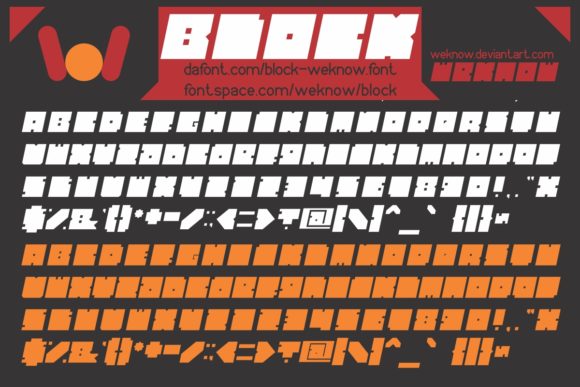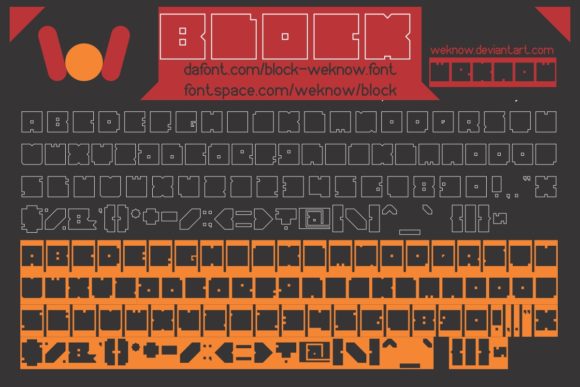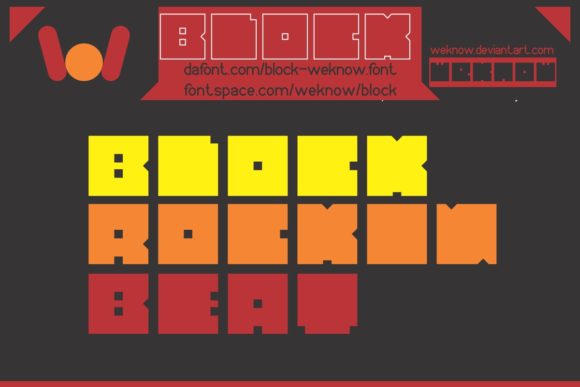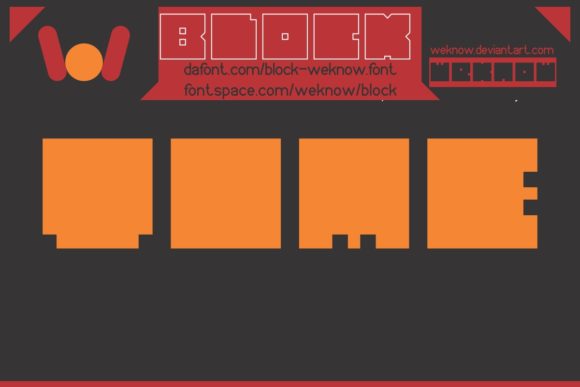
Discover the Eclectic Beauty of Block Font: A Playfully Conceptual Display Typeface
In the world of typography, few fonts manage to capture the essence of abstract shapes and eclectic beauty as effortlessly as Block Font. This playfully conceptual display typeface is a celebration of geometric forms and unconventional design, making it a standout choice for designers and crafters looking to add a touch of personality to their projects. With its unique blend of style and versatility, Block Font is poised to elevate your visual creations to new heights.
The Inspiration Behind Block Font
Block Font draws inspiration from the abstract and often unconventional world of geometric shapes. Its creator sought to craft a typeface that not only pays homage to the beauty of these shapes but also pushes the boundaries of traditional typography. The result is a font that is at once familiar and innovative, with each letter and character boasting a distinctive personality that sets it apart from more mundane typefaces.
Key Features of Block Font
- Unique Geometric Design: Block Font features a bold, geometric design that gives it a distinctive edge. Each letter is crafted from abstract shapes, creating a visually cohesive and striking appearance.
- Playful and Conceptual: This typeface is not just about aesthetics; it’s also about conveying a sense of playfulness and creativity. Its conceptual nature makes it perfect for projects that require a bit of whimsy and flair.
- Versatility: One of the standout features of Block Font is its versatility. It can be used in a wide range of contexts, from digital media and advertising to packaging and editorial design.
- Eclectic Beauty: The font’s eclectic beauty lies in its ability to blend seemingly disparate elements into a cohesive whole. This makes it an excellent choice for designers looking to create something truly unique.
Using Block Font in Your Designs
So, how can you make the most of Block Font in your designs? Here are a few tips:
- Experiment with Color: Block Font’s geometric design lends itself beautifully to bold, vibrant colors. Don’t be afraid to experiment with different color schemes to find the perfect combination for your project.
- Mix and Match: Block Font can be paired with a variety of other typefaces to create interesting contrasts and visual hierarchies. Try mixing it with serif or script fonts for a unique look.
- Consider Context: While Block Font is versatile, it’s essential to consider the context in which it will be used. For example, it might be more suitable for a trendy boutique brand than a traditional corporate identity.
Why Designers and Crafters Love Block Font
Block Font has quickly become a favorite among designers and crafters for several reasons:
- Creativity Unleashed: This typeface offers a level of creative freedom that’s hard to find with more traditional fonts. Its unique design encourages experimentation and innovation.
Block Font is more than just a typeface – it’s a design statement. With its eclectic beauty, playful conceptuality, and versatility, it offers designers and crafters a powerful tool for creating visually stunning projects. Whether you’re looking to make a bold statement or simply add a touch of personality to your designs, Block Font is an excellent choice. So why settle for ordinary typography when you can celebrate abstract shapes in all their beauty with Block Font?
Embrace the unique charm of Block Font and discover a world of creative possibilities. Whether you’re a seasoned designer or a crafting enthusiast, this playfully conceptual display typeface is sure to inspire and elevate your work.